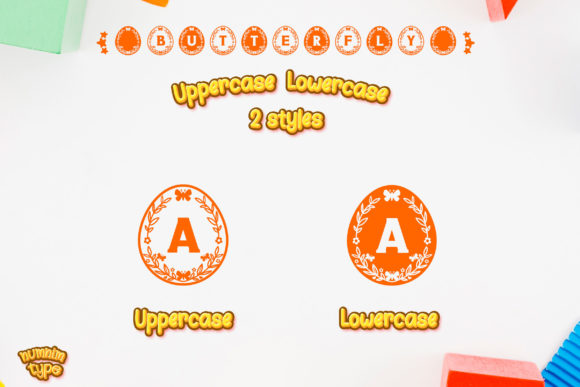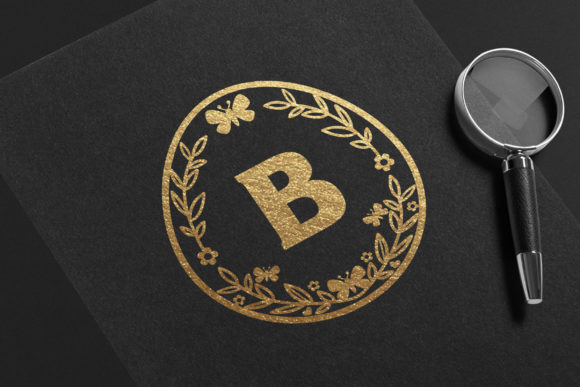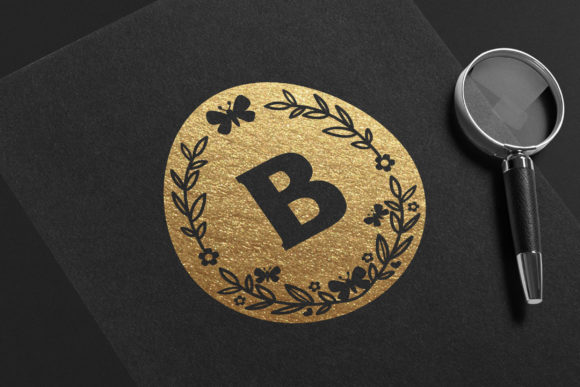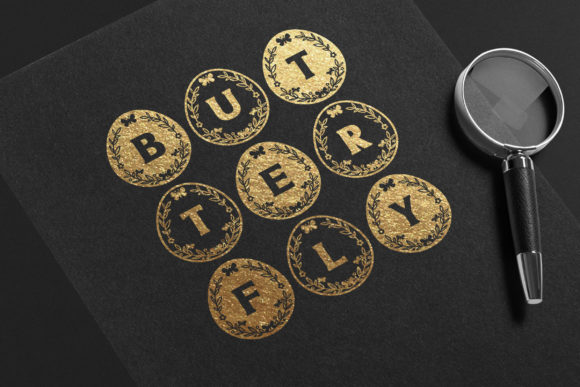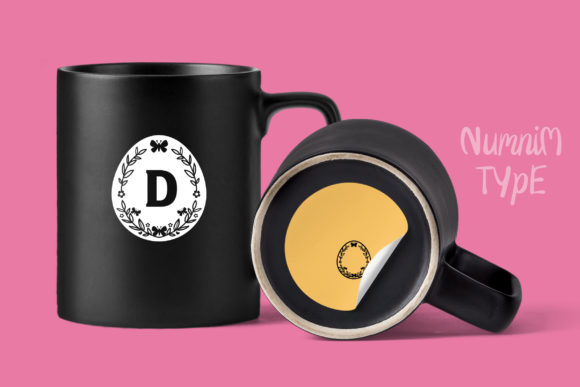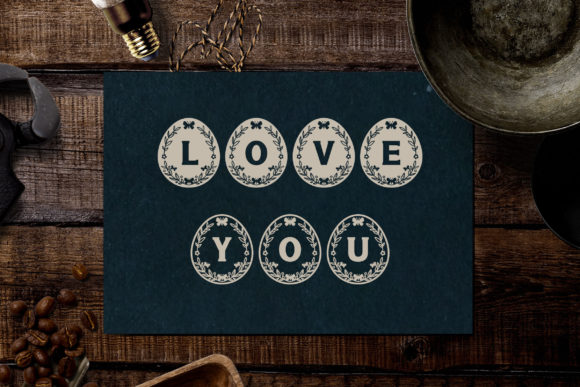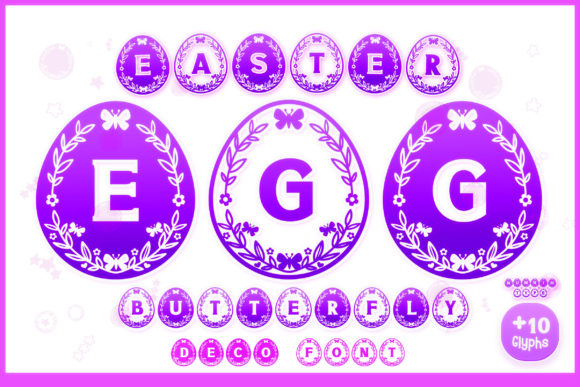
Easter Egg Butterfly Font: A Delightful Decorative Font for Your Creative Projects
Are you looking for a font that can add a touch of whimsy and fun to your designs? Look no further than the Easter Egg Butterfly Font! This cool and uniquely crafted decorative font is perfect for creating eye-catching stickers, mugs, t-shirts, ornaments, Easter Event cards, event invitations, and more.
What Makes Easter Egg Butterfly Font So Special?
The Easter Egg Butterfly Font is a one-of-a-kind decorative font that features fun and playful characters. Its unique design makes it stand out from other fonts, and its versatility allows you to use it for a wide range of creative projects. Whether you’re a designer, crafter, or DIY enthusiast, this font is sure to inspire your next project.
Perfect for Easter-Themed Projects
The Easter Egg Butterfly Font is especially perfect for Easter-themed projects. The font’s Easter egg and butterfly designs evoke the spirit of spring and add a touch of festivity to any project. You can use it to create adorable Easter cards, invitations, and decorations that are sure to delight your friends and family.
Use Easter Egg Butterfly Font for a Variety of Projects
The Easter Egg Butterfly Font is not just limited to Easter-themed projects. Its playful and fun design makes it suitable for a wide range of creative projects, including:
- Stickers: Add a touch of fun to your stickers with this unique font.
- Mugs: Create eye-catching mug designs that are sure to brighten up anyone’s day.
- T-shirts: Design fun and playful t-shirts that are perfect for spring.
- Ornaments: Add a touch of whimsy to your ornaments with this delightful font.
- Easter Event cards: Create adorable Easter cards that are sure to delight your friends and family.
- Event invitations: Use this font to create fun and playful event invitations that set the tone for your party or event.
Why Designers and Crafters Love Easter Egg Butterfly Font
Designers and crafters love the Easter Egg Butterfly Font for its unique and playful design. Here are some reasons why:
- Unique design: The font’s Easter egg and butterfly designs are unlike anything you’ve seen before.
- Versatility: The font is suitable for a wide range of creative projects.
- High-quality: The font is high-quality and perfect for printing.
Tips for Using Easter Egg Butterfly Font
Here are some tips for using the Easter Egg Butterfly Font:
- Experiment with different colors: The font looks great in a variety of colors, so don’t be afraid to experiment.
- Pair with other fonts: The Easter Egg Butterfly Font pairs well with other fun and playful fonts.
- Use for headings: The font is perfect for headings and titles, but you can also use it for body text.
- Add graphics: Consider adding graphics, such as Easter eggs or butterflies, to enhance your design.
The Easter Egg Butterfly Font is a delightful decorative font that’s perfect for designers and crafters. Its unique and playful design makes it suitable for a wide range of creative projects, from Easter-themed projects to stickers, mugs, t-shirts, and more. With its ease of use, high-quality design, and versatility, this font is sure to become a favorite in your design arsenal.